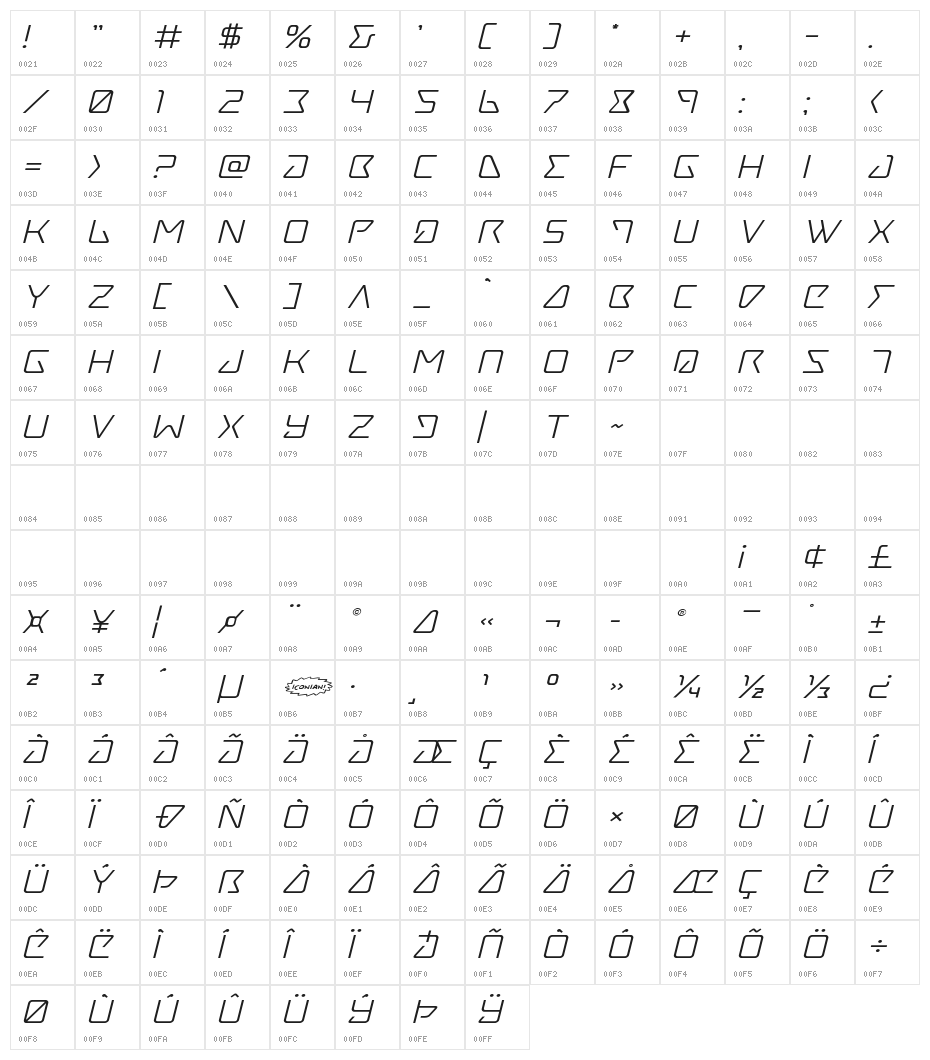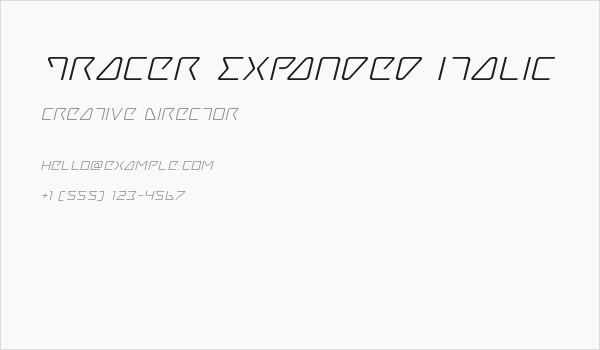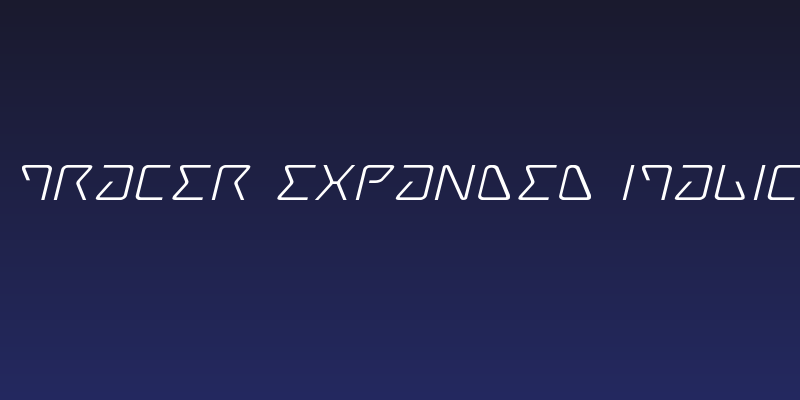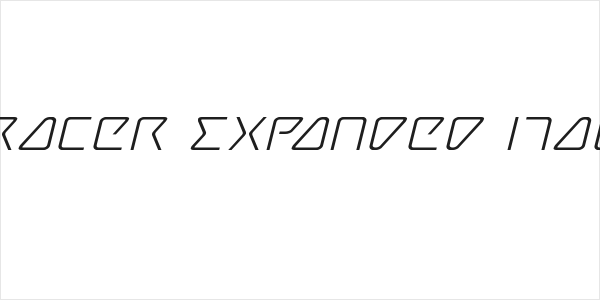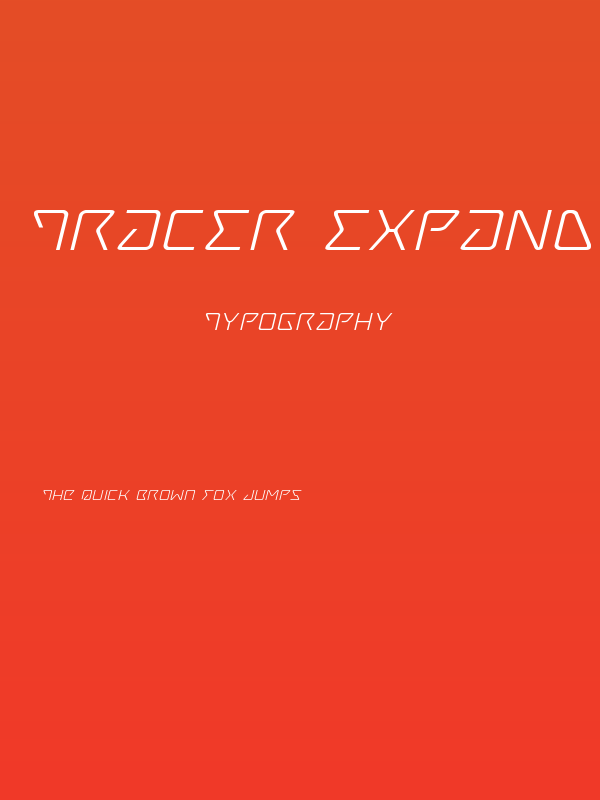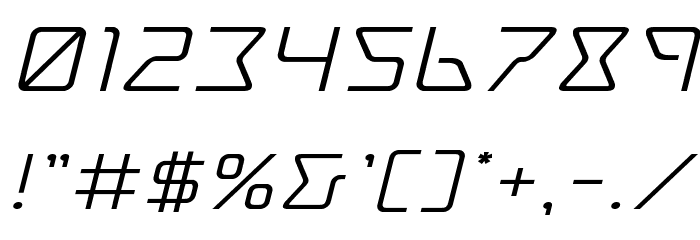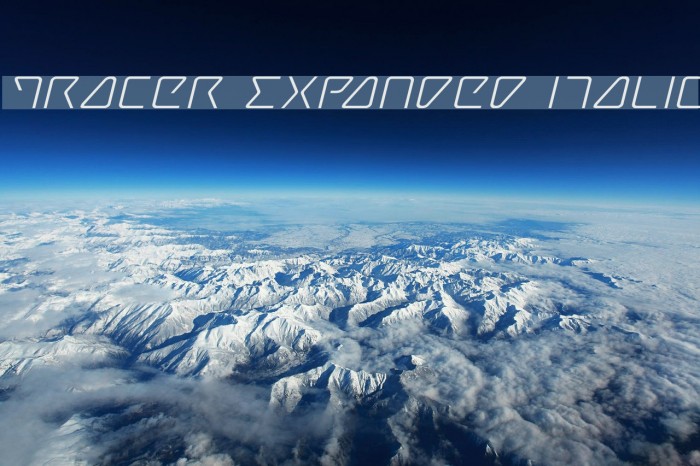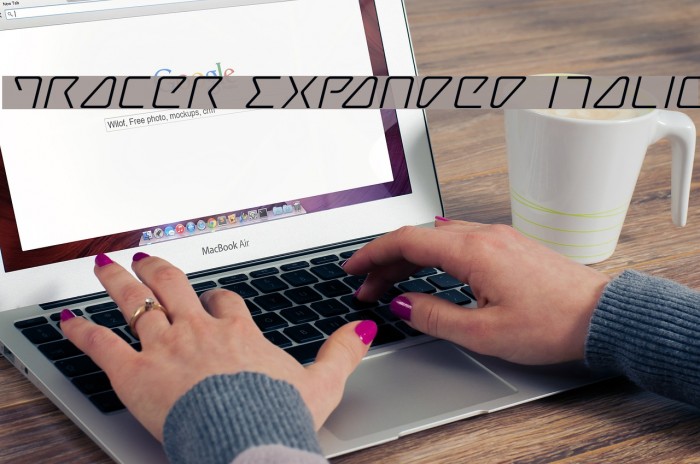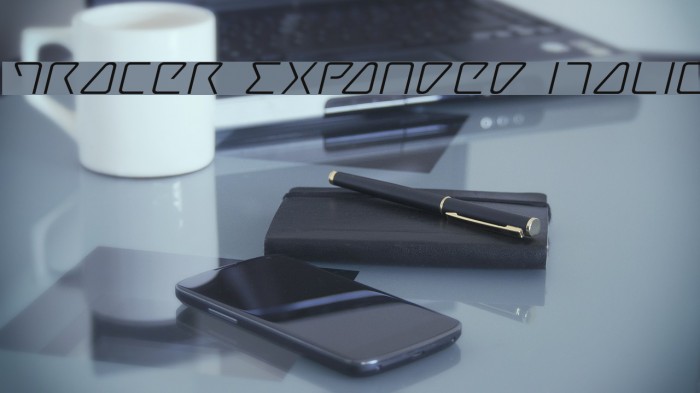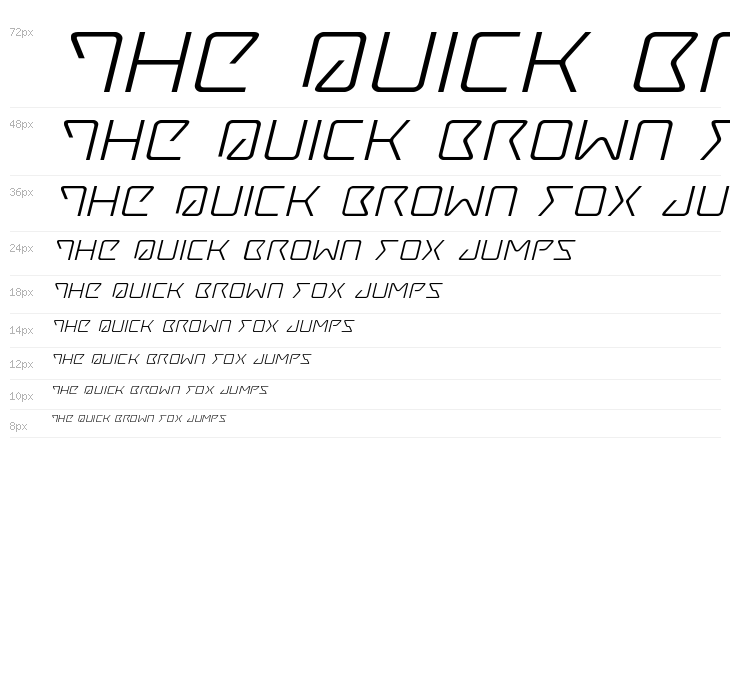
Tracer Expanded Italic Font
Tracer Expanded Italic Description
This font features a futuristic and angular design with a distinct italic slant, giving it a dynamic and forward-moving appearance. The characters are constructed with clean, straight lines and sharp angles, creating a sense of precision and modernity. The expanded width of the letters adds a spacious feel, enhancing readability while maintaining a unique aesthetic. The font's geometric nature is consistent across uppercase, lowercase, numerals, and special characters, providing a cohesive look. Its style is reminiscent of digital or sci-fi themes, making it suitable for projects that require a cutting-edge and innovative touch.